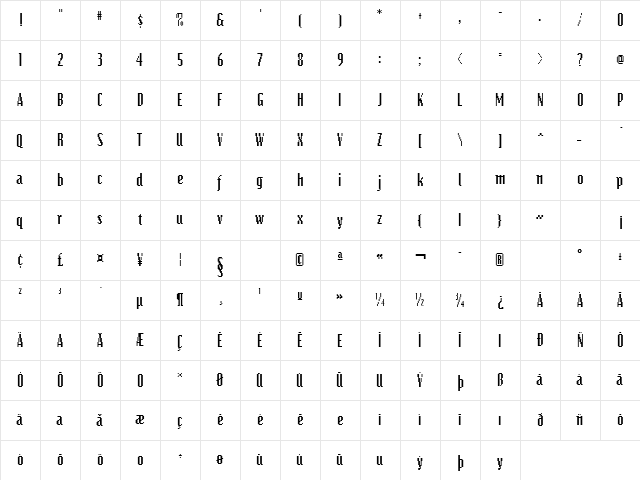
Bits Regular
Design Context for Bits Typeface
Bits takes a measured approach to typography — its balanced proportions and neutral character make it a reliable workhorse for both digital and print work.
Pro Tip: Use Bits in both headline and body roles to test its range before committing to a single application.